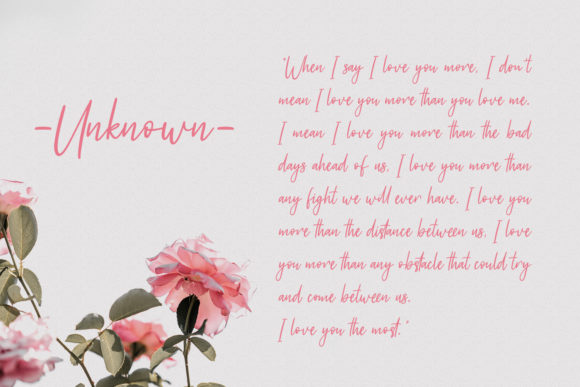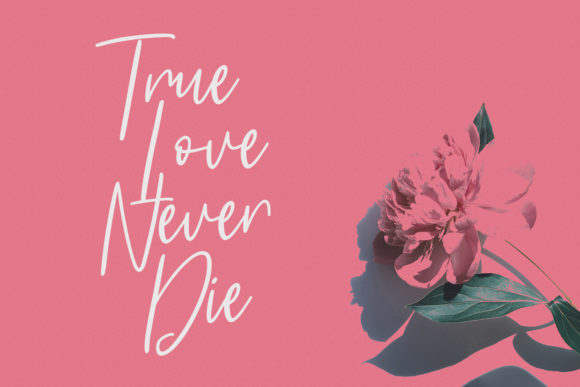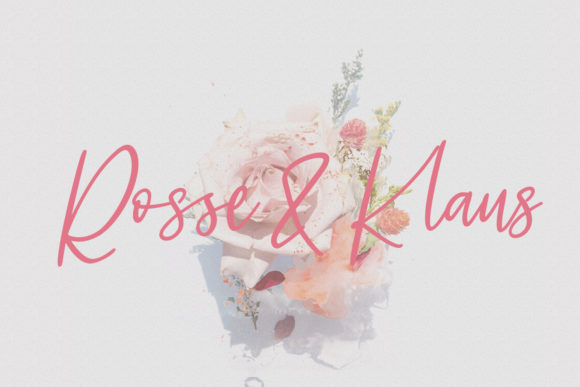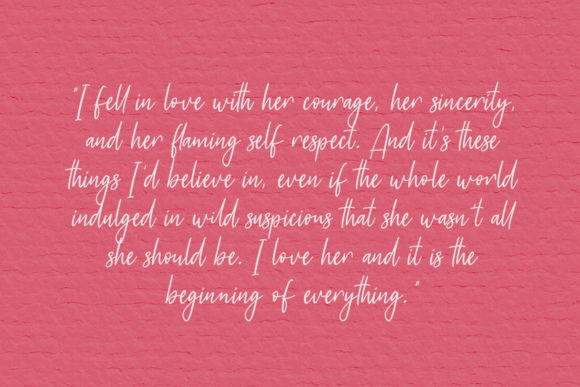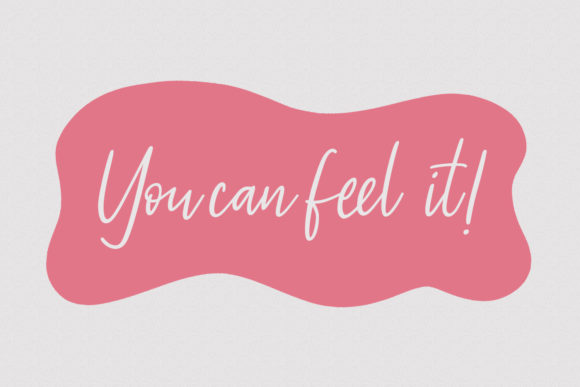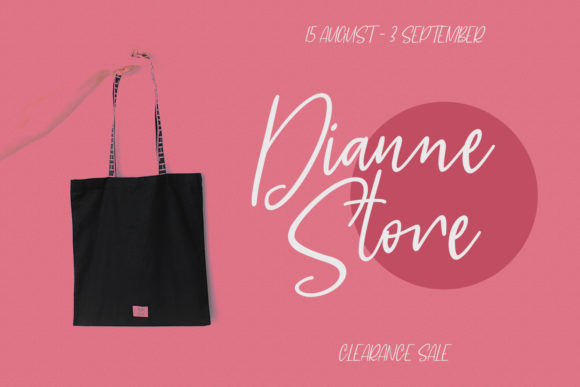
The Ultimate Guide to Castella Script Font: Elevate Your Designs with Elegance
Have you ever been in the middle of a design project, and suddenly, you’re stuck on finding the perfect font? I recall a recent experience where a client asked for a logo that exuded elegance and sophistication. After hours of searching, I stumbled upon Castella Script Font, and it was love at first sight! In this article, we’ll dive into the world of Castella Script, exploring its unique features, and how to make the most of this beautiful font.
A Personal Review: What I Love About Castella Script
Castella Script is a relaxed and flowing handwritten font that has captured my heart. Here are a few things that I absolutely love about it:
• ✨ Unique and beautiful touch: Every letter has a distinct character that adds a personal touch to your designs.
• ✅ Elegant and sophisticated: Castella Script is perfect for creating high-end logos, branding, and quotes that require a touch of luxury.
• 🌈 Versatile: This font can be used for a wide range of design projects, from wedding invitations to business cards.
While Castella Script is an amazing font, there are a few quirks to be aware of:
• 🤔 Limited use in body text: Due to its elegant and cursive nature, Castella Script might not be the best choice for lengthy paragraphs.
• ⚠️ Kerning issues: As with any script font, you might need to adjust the kerning to ensure that the letters flow smoothly.
Castella Script was inspired by the art of traditional calligraphy. The font’s creator aimed to capture the elegance and sophistication of handwritten scripts, while making it accessible for modern designers. The result is a beautiful and versatile font that can elevate any design project.
What type of designs is Castella Script best suited for? Castella Script is perfect for creating eye-catching logos, branding, and quotes that require an elegant and sophisticated touch.
In conclusion, Castella Script Font is an exceptional addition to any designer’s toolkit. Its elegant and sophisticated touch can elevate any design project, from logos to branding and quotes. With its versatility and user-friendly nature, Castella Script is sure to become a favorite among designers, crafters, and creative hobbyists alike.